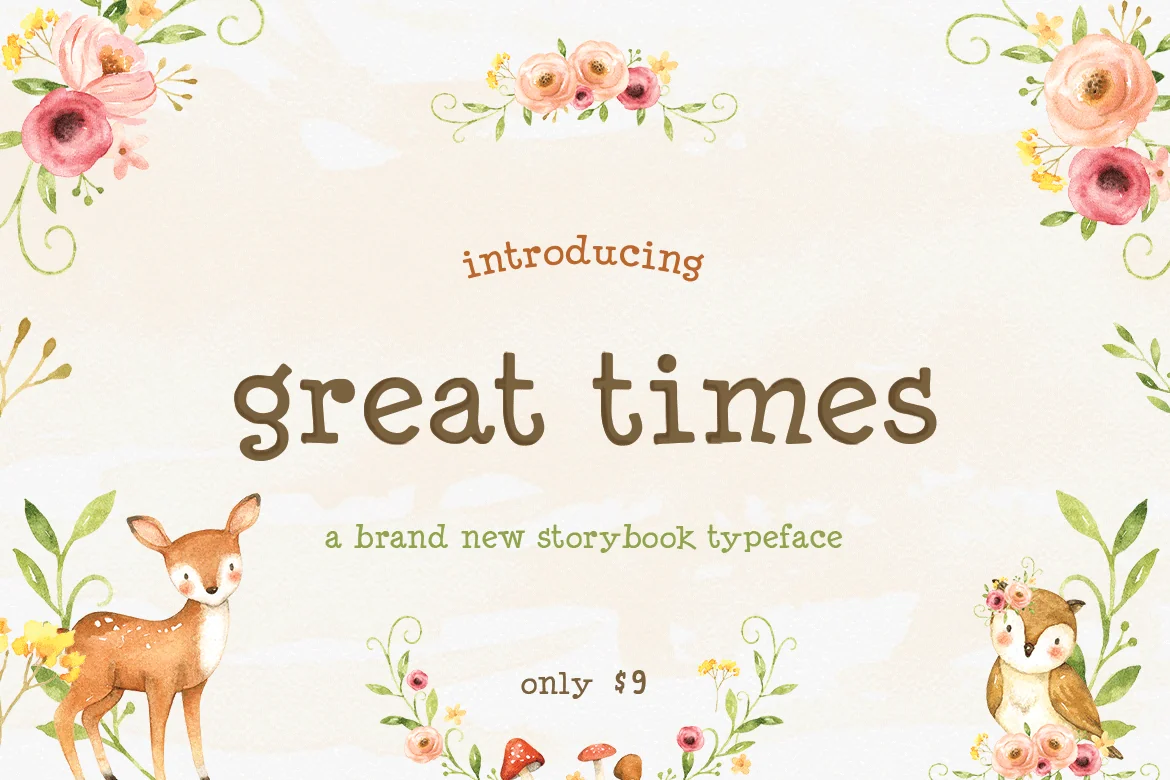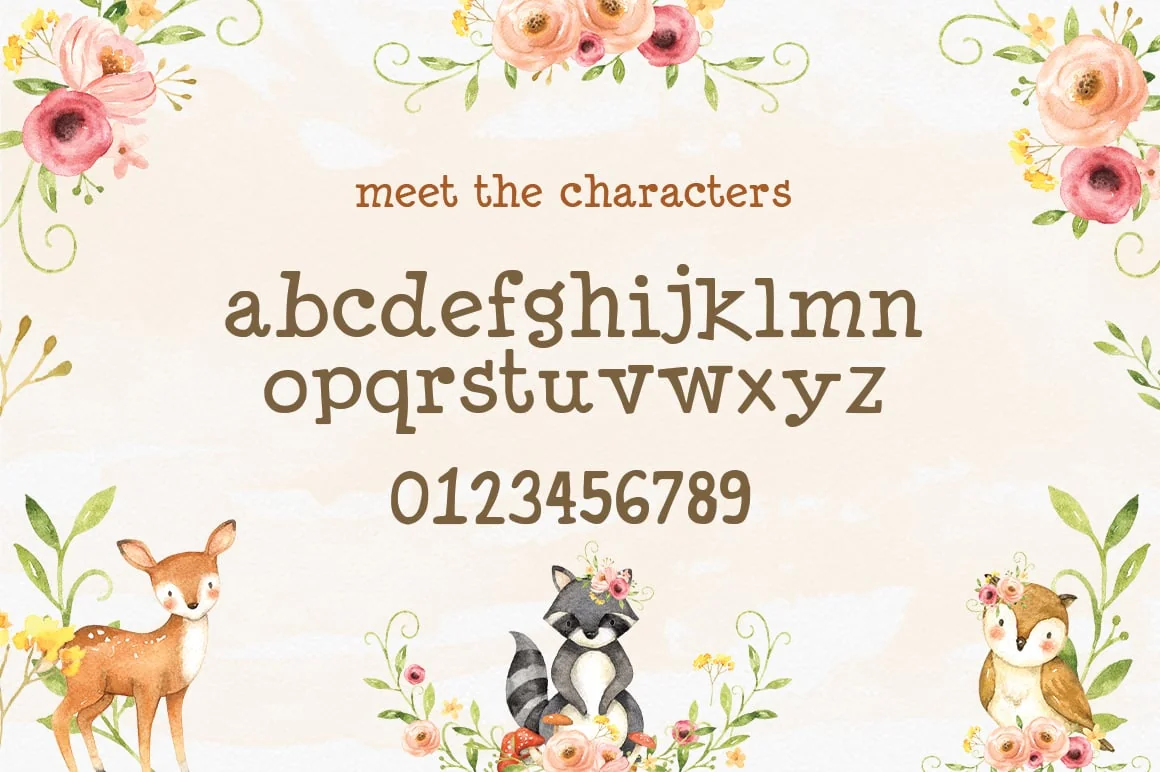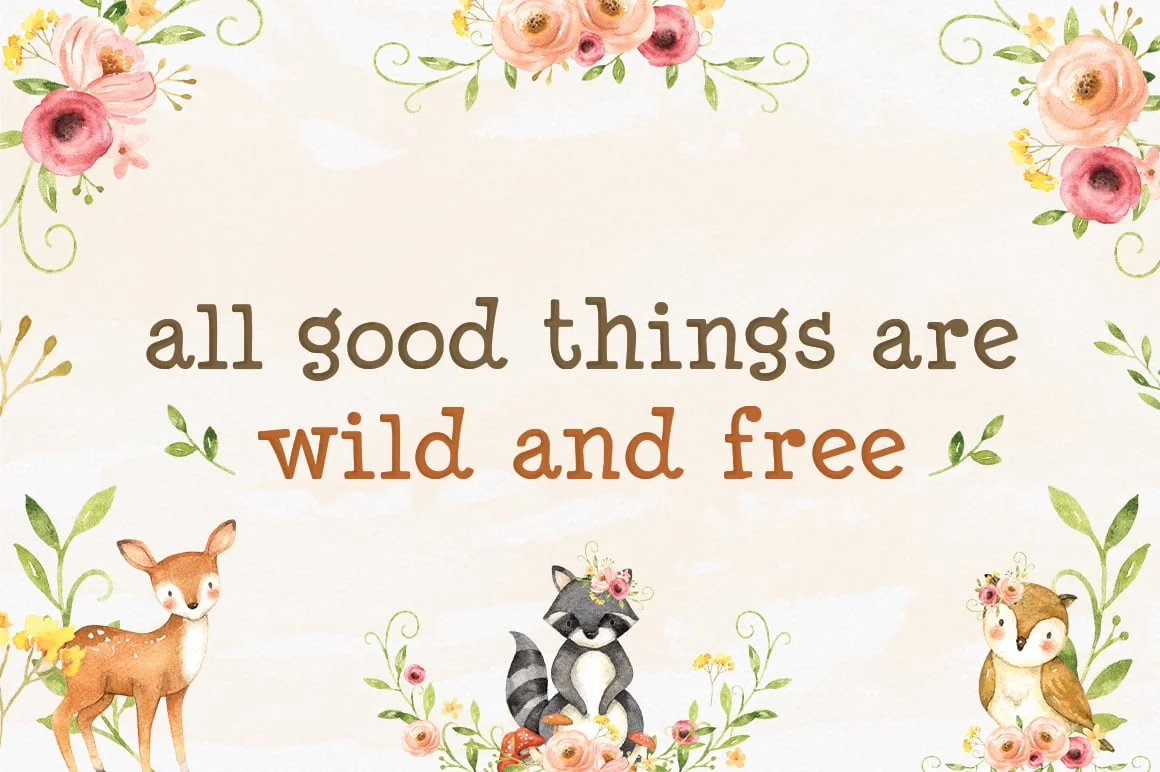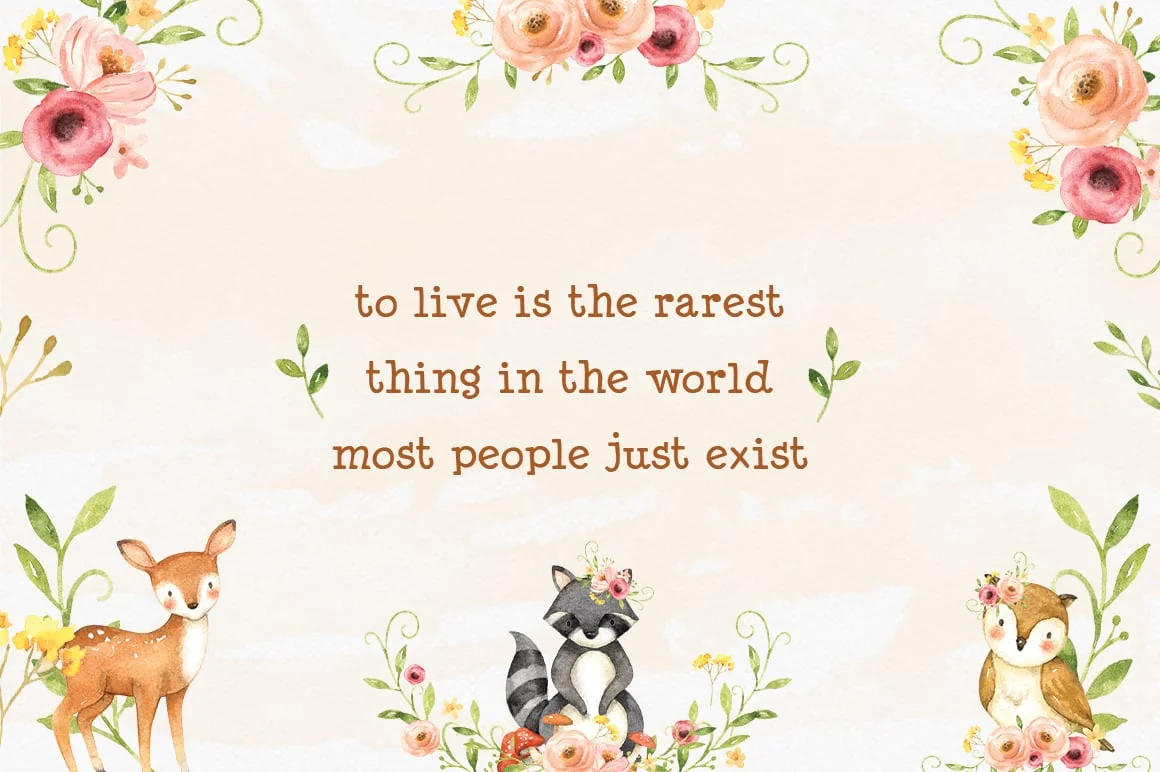
Great Times Font
Good times? No, GREAT times! Our adorably cute new font! Full of quaint characters, you’ll be mad not to fall for this darling offering. With a hand drawn ‘typewriter’ feel, it is perfect for everyday use!